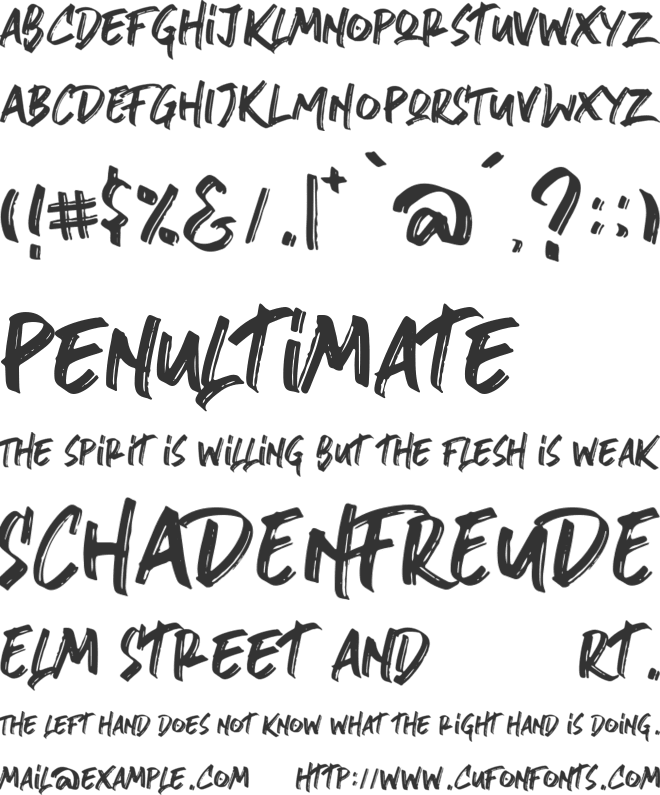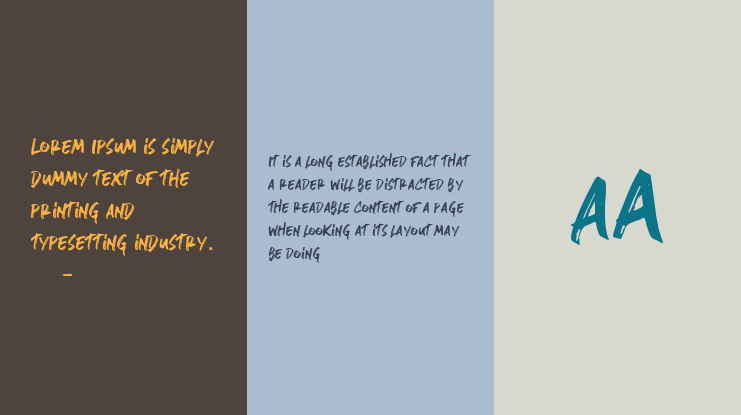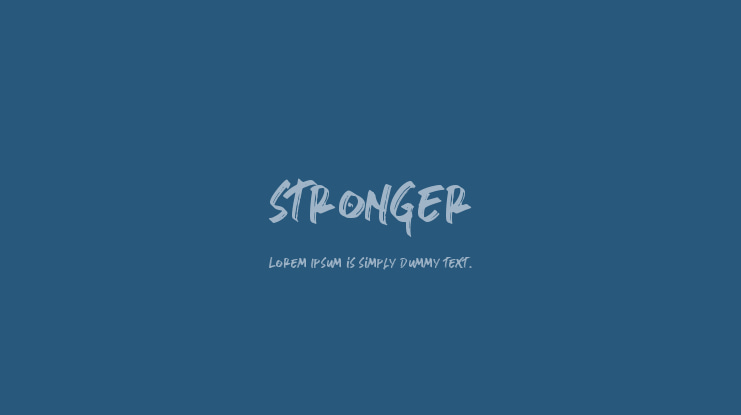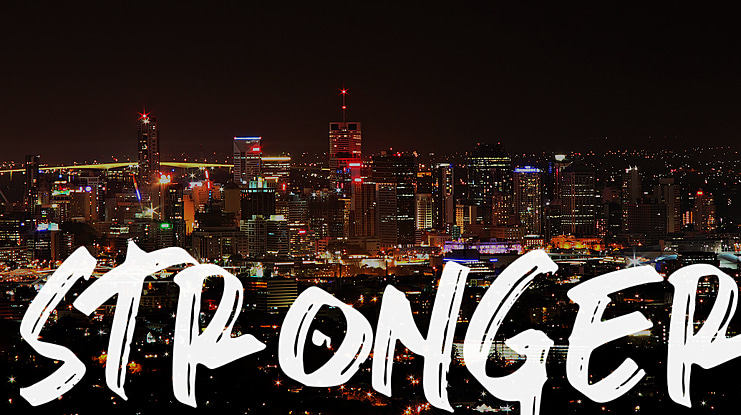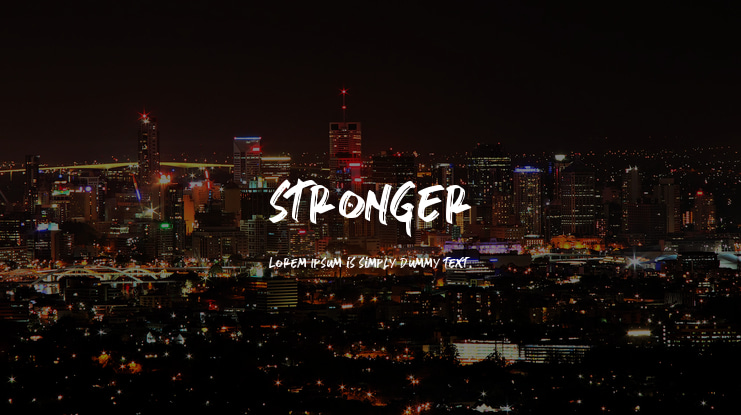
stronger Font Family
Stronger is a supercharged, street-wise brush font bursting with energy. With extra attention to quick strokes and sharp details, Stronger is ideal for logos, apparel, quotes, product packaging, or anything which needs a typographic turbo-boost.
Stronger Regular - The standard version of the font. Perfect for titles and logos.
Stronger Swash - Need a cool underline under your text or a splash of paint? This font set has you covered. Type any letter a-z using this font, and you'll get a unique swash to accompany the font and extra brush for Photoshop.
Language Support - We've added in a great deal of extra characters to support many different languages.
Alternate Ligatures - Even though this is an uppercase font, the lowercase characters will give alternate uppercase characters